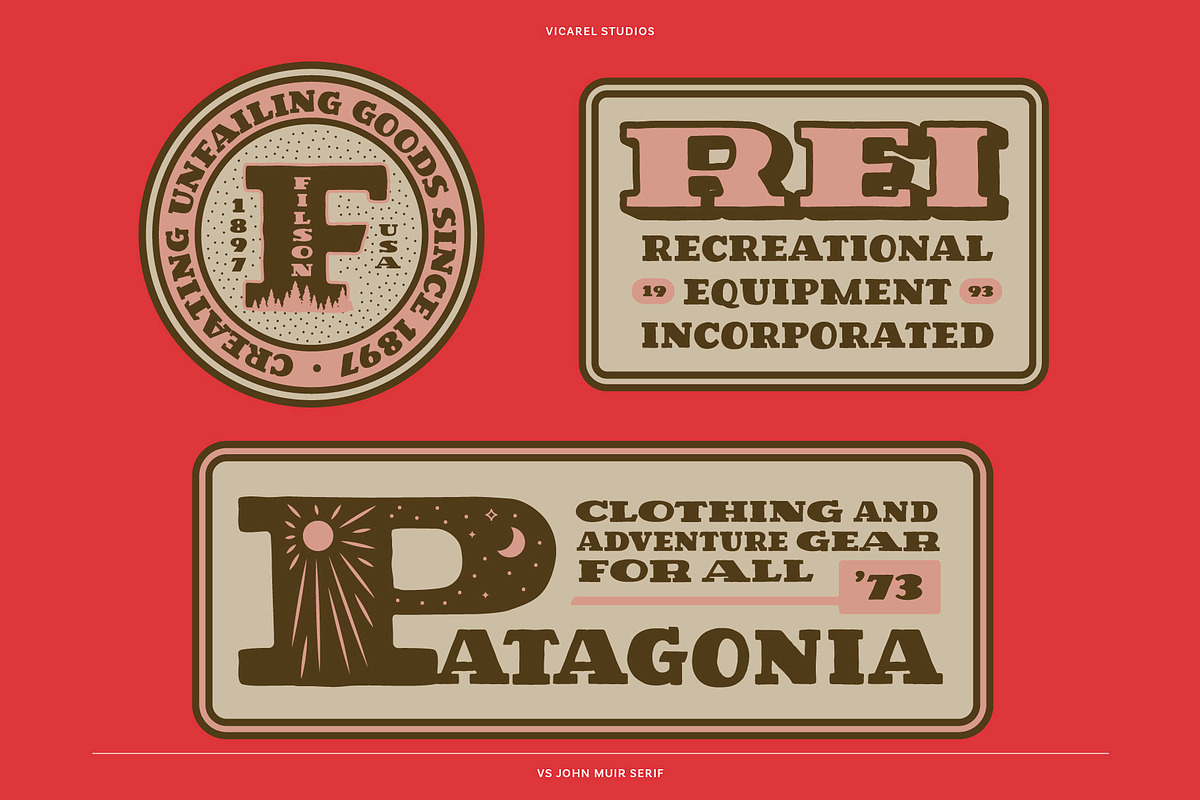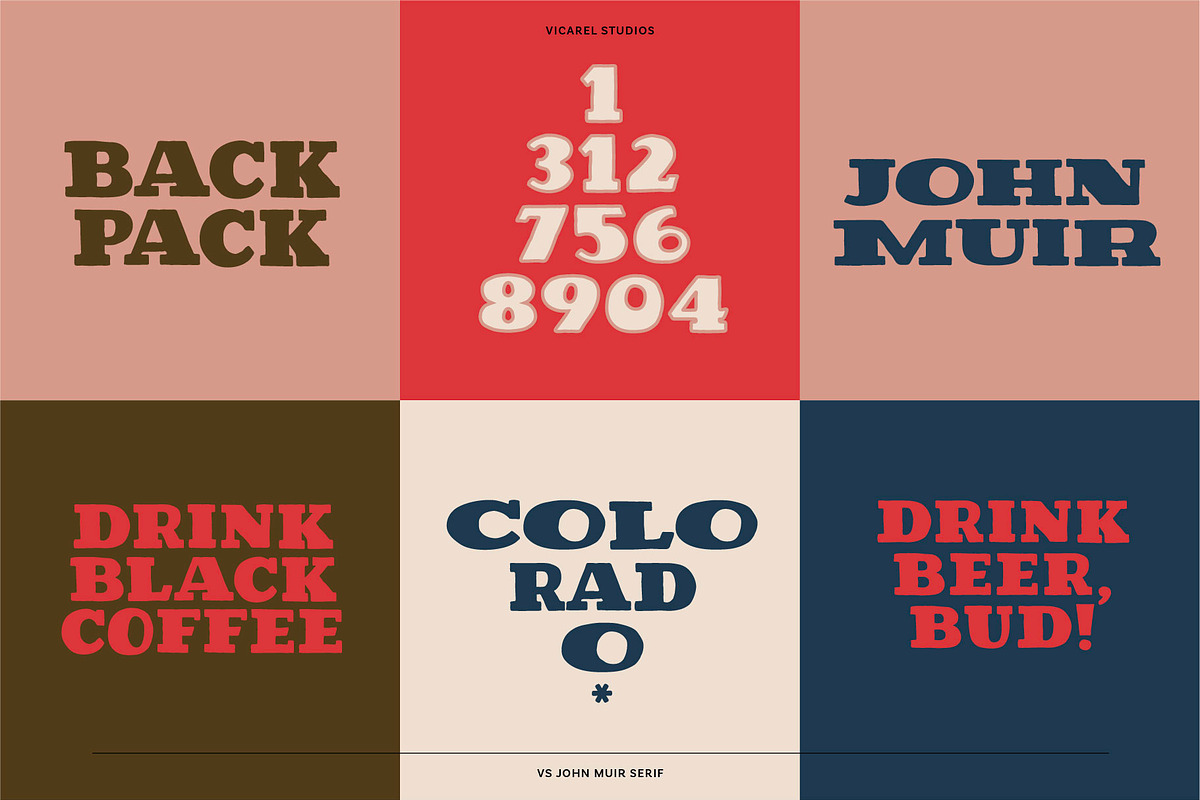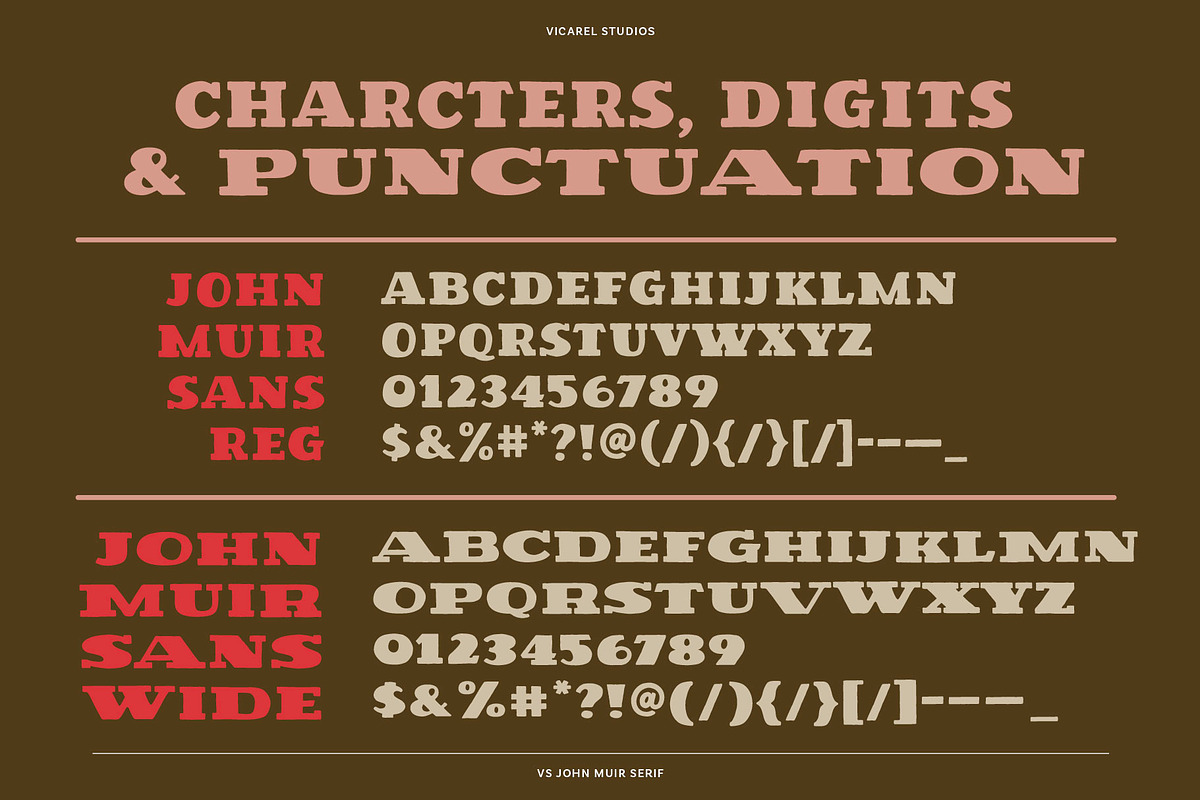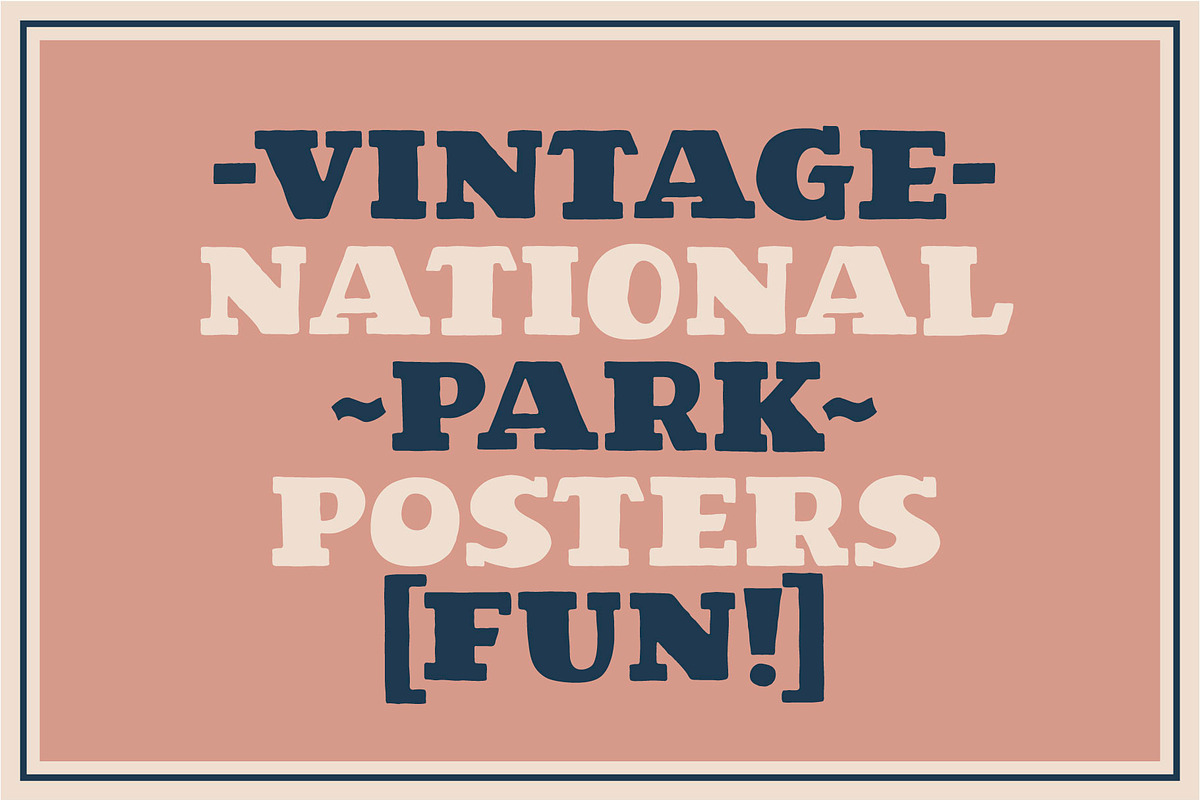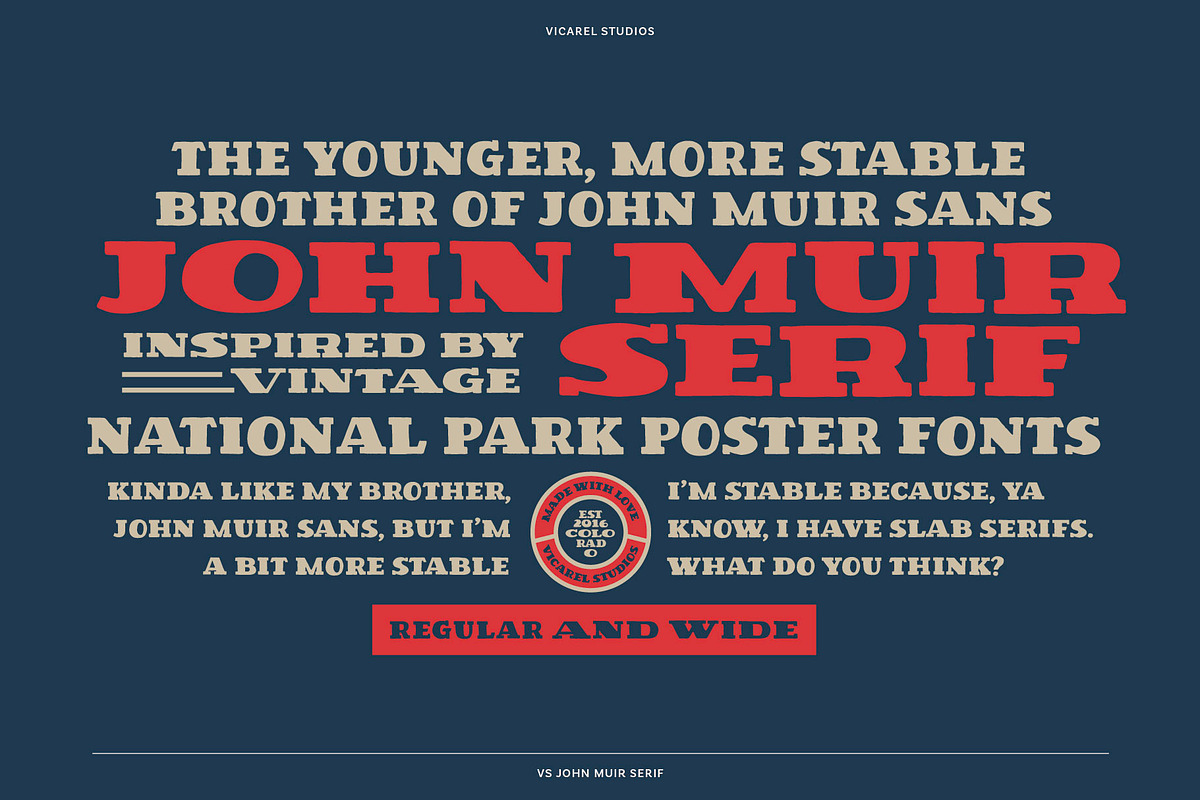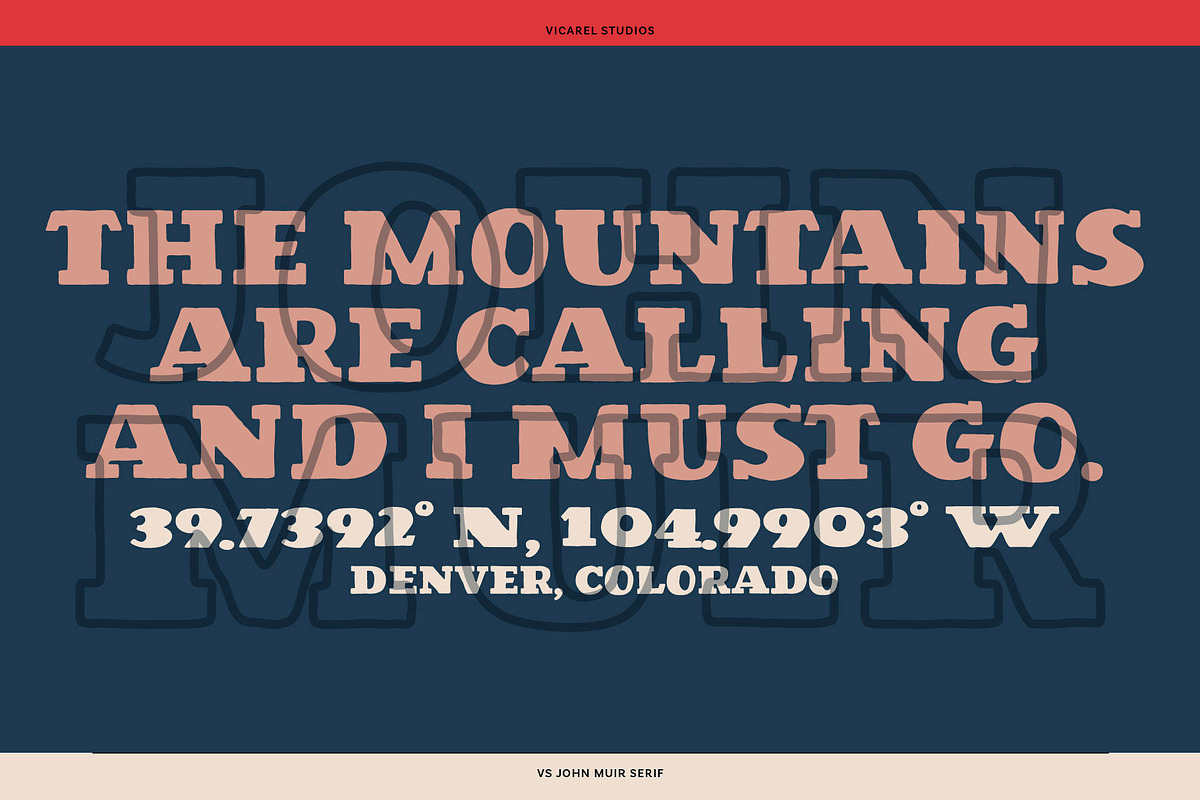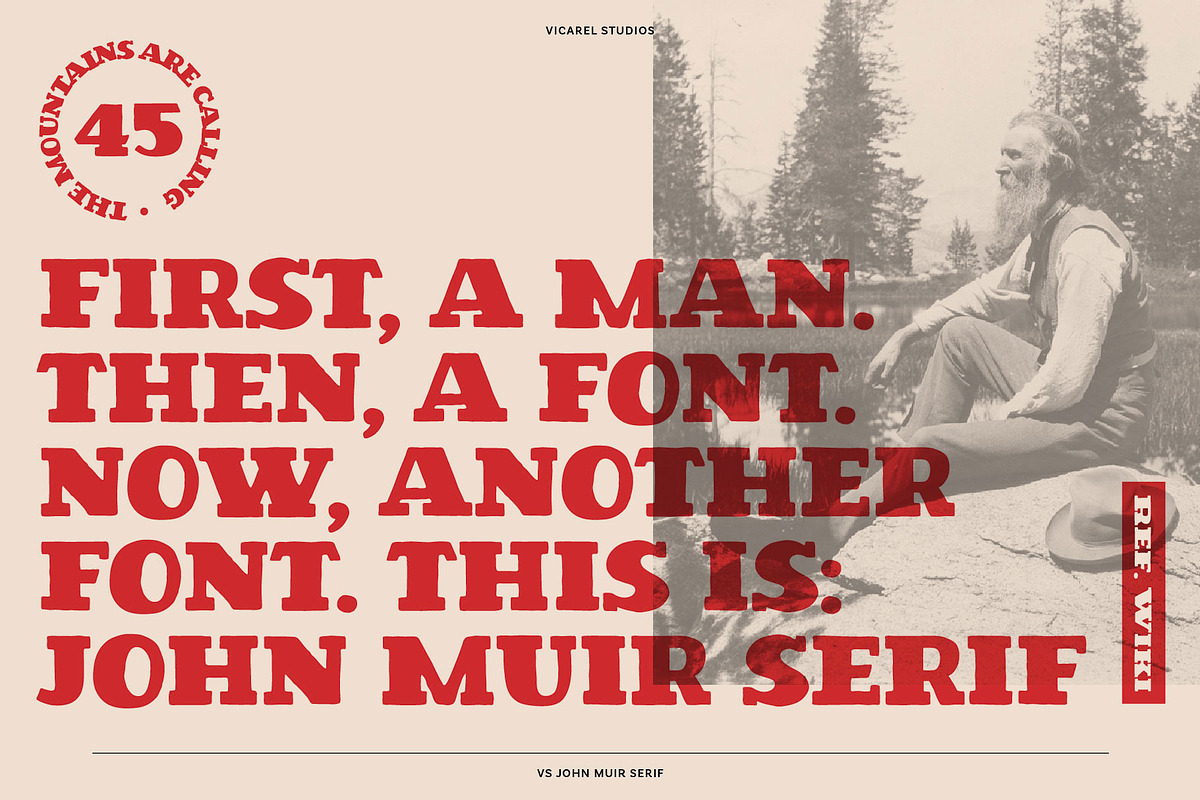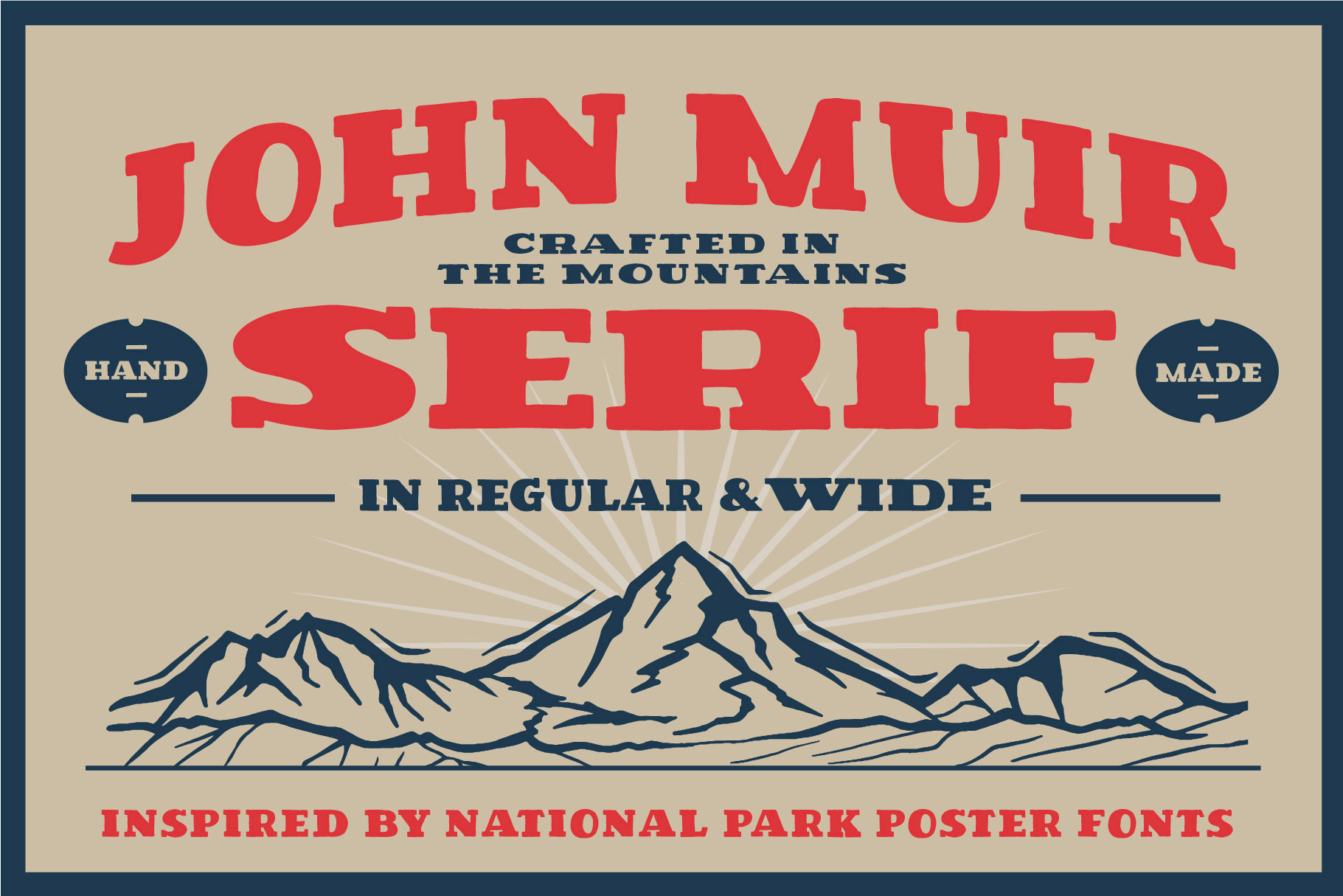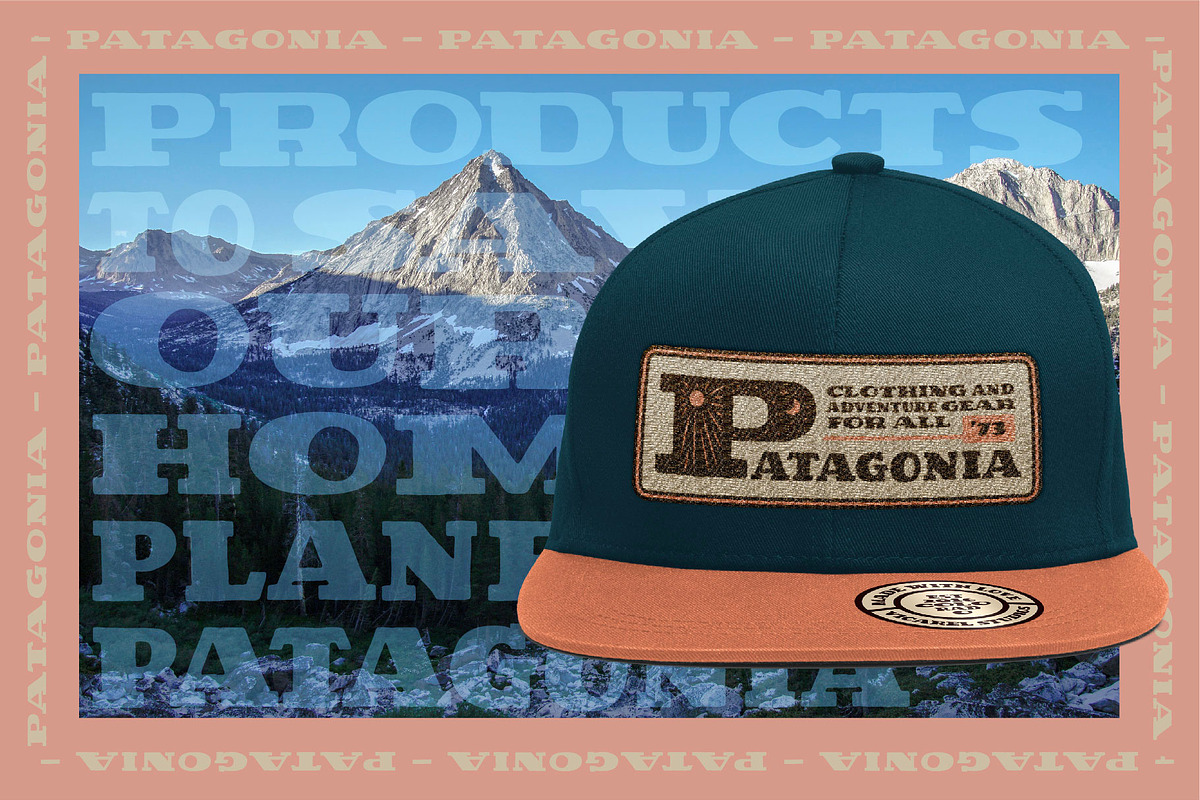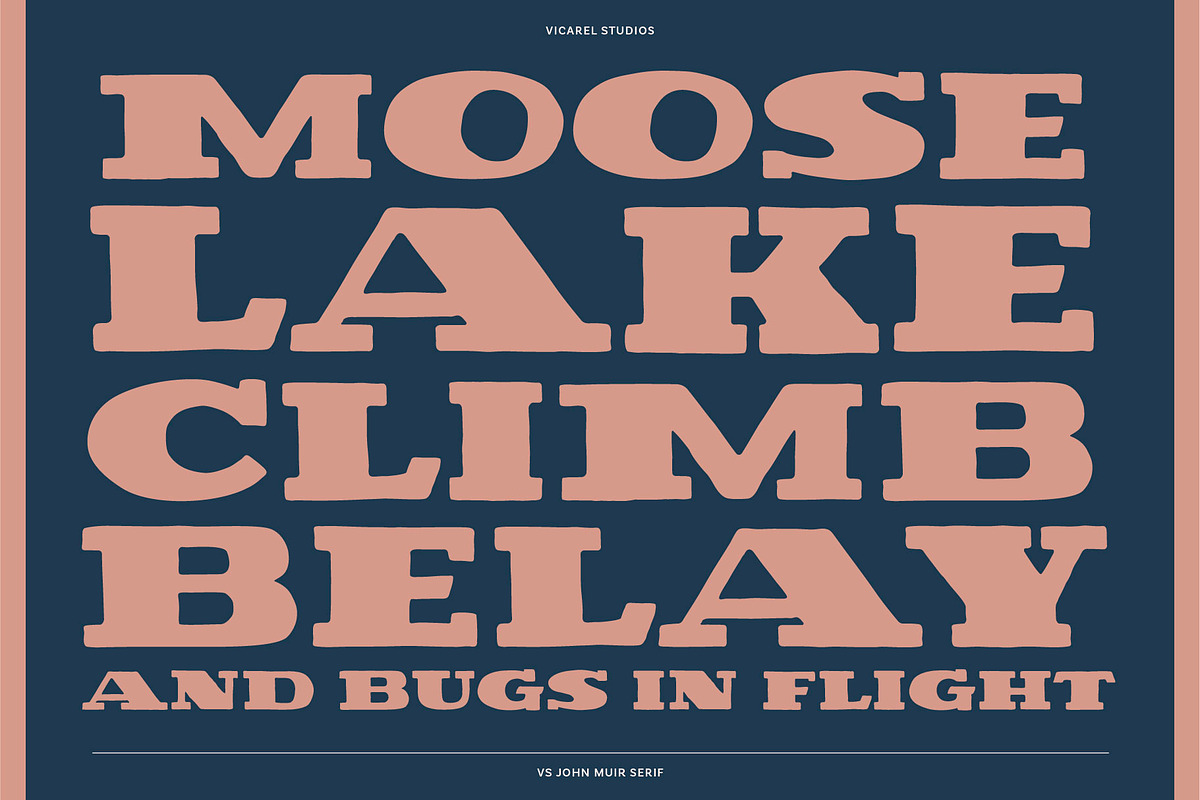
VS John Muir Serif Vintage Font
VS John Muir Serif, inspired by National Park poster fonts, by Vicarel Studios.
Styles: -Regular -Wide
A versatile, rough and worn slab serif font inspired by vintage National Parks poster fonts, the National Forest Service and the iconic John Muir himself. Based on our best selling font, John Muir Sans (also available here on Creative Market).
This font was created so that you can create beautiful, rustic logos, packaging designs, and apparel designs, and so much more—the possibilities are endless!
You're looking for a hand drawn look, but don't have the skillset or time to create it, VS John Muir Serif is here to help!